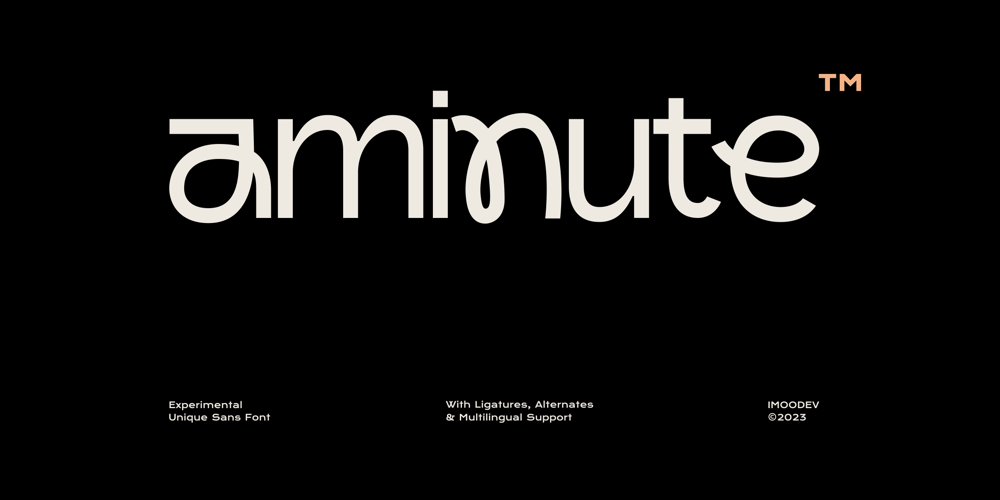
Aminute Font Family was designed by Aulia Savira Putri and published by Imoodev. Aminute contains 1 styles and family package options. Aminute is a experimental unique sans font that has smooth curves and a visual style a can embodies charm and elegance in every lettering, making your work look stunning and attractive.A versatile font that works in both uppercase and lowercase sizes, suitable for a wide variety of projects such as a display font for headings, logo fonts, invitations, branding, book covers, magazine layouts, card, product packaging, product mockup, mugs, posters, labels, editorials, art deco, and any type of advertising purpose.Features: Uppercase and Lowercase Punctuation, Number, and Symbol Multilingual Support Opentype Features Thank you for purchasing! Good luck designing!Regards, Imoodev